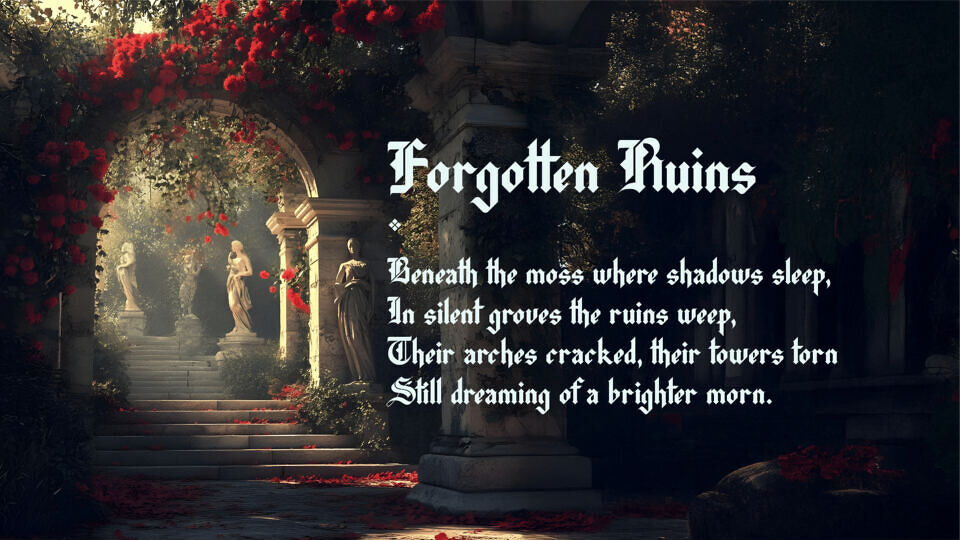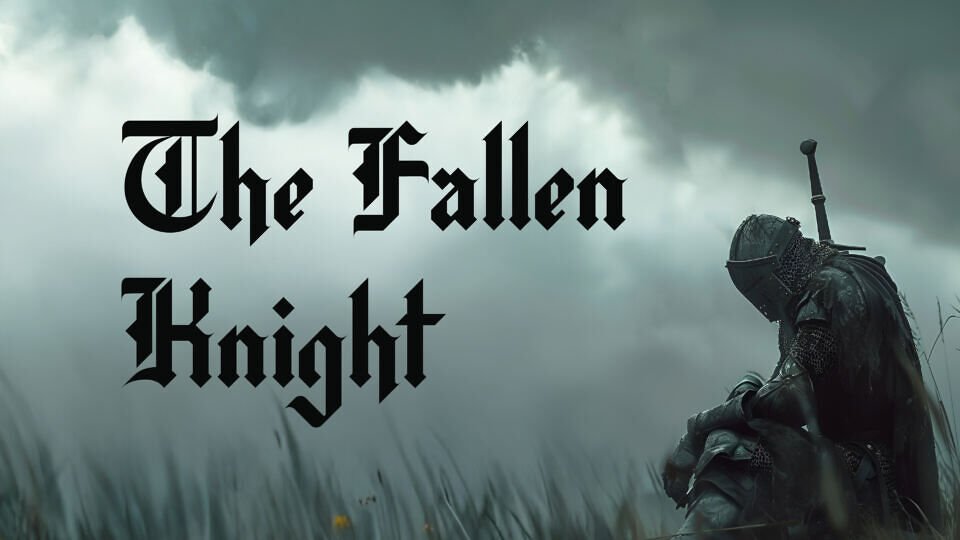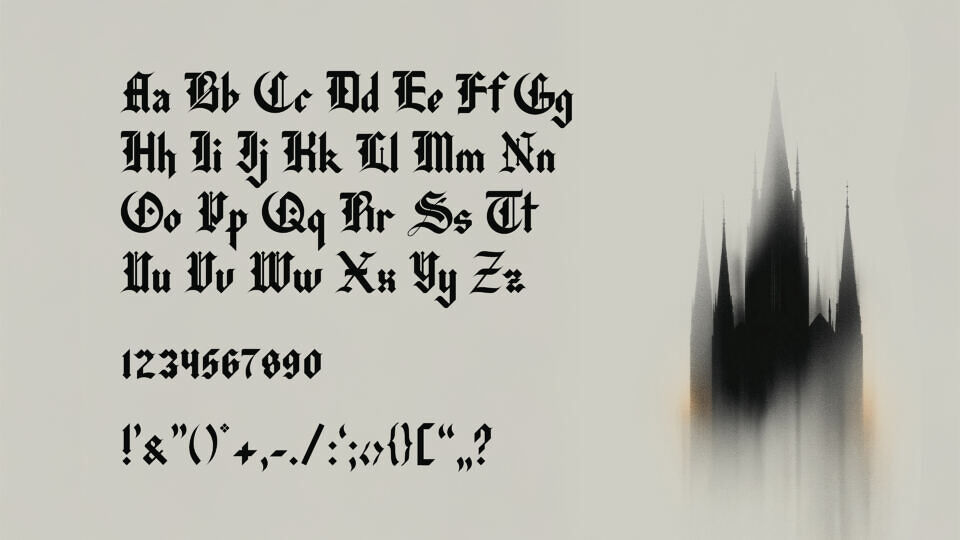
Scriptum is a blackletter typeface that balances gothic gravitas with surprising clarity. Designed for maximum readability without losing its historic soul, it’s perfect for branding, editorial, packaging, and any design that demands presence and personality. With full multilingual support (Pro version), Scriptum speaks your message—no matter the language.